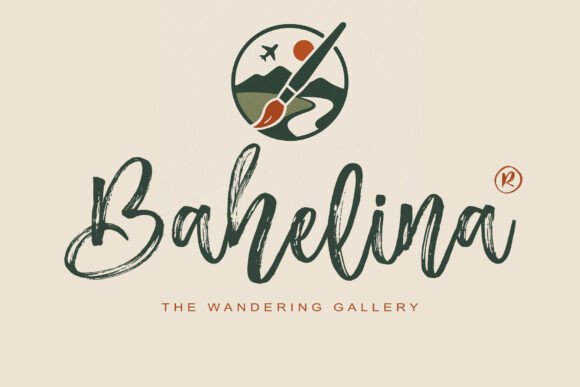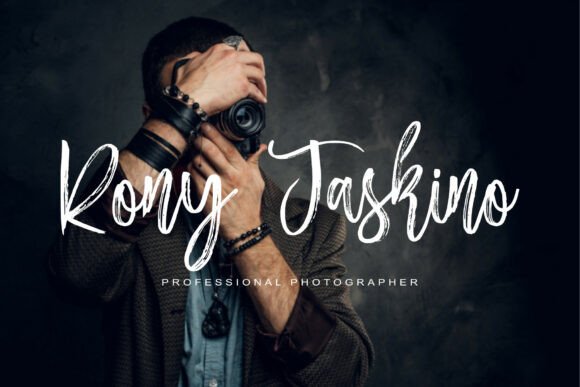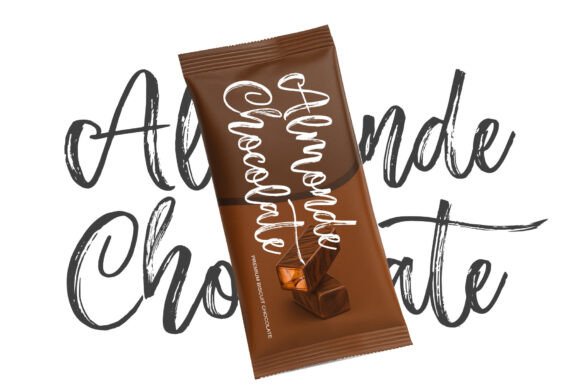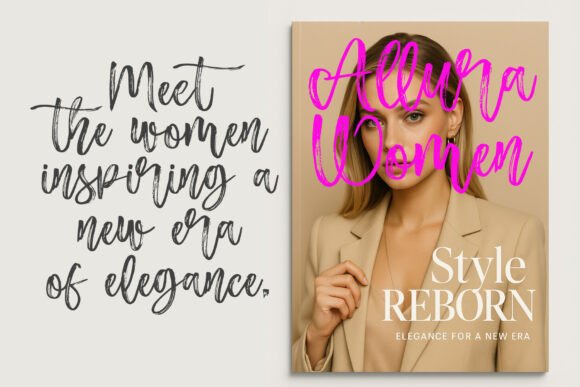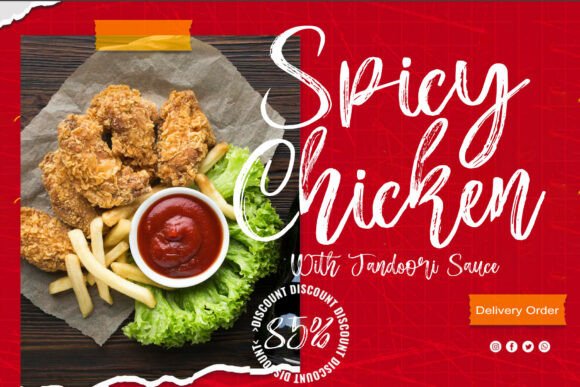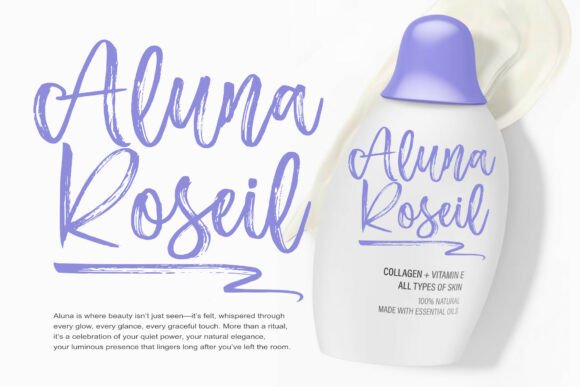
Introducing Amiluera Font: Elevate Your Designs with Luxurious Handbrush Script
In the world of typography, few fonts manage to convey the essence of elegance, flow, and timeless charm as effectively as Amiluera. This luxurious handbrush script font is a masterpiece of modern calligraphy, designed to infuse your creative projects with a romantic and sophisticated flair. Whether you’re a designer, craftsperson, or DIY enthusiast, Amiluera offers the perfect blend of style and versatility to elevate your work.
The Inspiration Behind Amiluera
Amiluera draws its inspiration from the realms of high-fashion branding and modern calligraphy. The result is a font that exudes luxury, poise, and refinement. Each letterform is meticulously crafted to showcase beautifully connected strokes, creating a fluid and dynamic movement that is both captivating and stylish. This attention to detail makes Amiluera an exceptional choice for projects where making a lasting impression is paramount.
Key Features of Amiluera Font
- Smooth Strokes and Graceful Curves: Amiluera’s defining feature is its smooth, handbrush script style. The font boasts graceful curves and fluid connections between letters, creating a harmonious and elegant appearance.
- Timeless Charm: Unlike trends that fade with time, Amiluera’s classic appeal ensures that your designs remain relevant and stylish for years to come.
- Versatility: From wedding invitations and feminine logos to social media graphics, product packaging, and editorial designs, Amiluera’s versatility knows no bounds. Its adaptability makes it an invaluable asset for any designer or craftsperson.
- Romantic and Sophisticated Touch: Amiluera adds a touch of romance and sophistication to any project. Its luxurious feel is perfect for designs that require a high-end look and feel.
Perfect Applications for Amiluera
Amiluera’s unique characteristics make it suitable for a wide range of applications. Here are some of the ideal uses for this stunning font:
- Wedding Invitations: Add a touch of elegance and romance to your wedding invitations, save-the-date cards, and other wedding-related materials.
- Feminine Logos: Create memorable and stylish logos for brands that cater to a feminine audience or require a touch of elegance.
- Social Media Graphics: Elevate your social media presence with stylish and engaging graphics that reflect your brand’s personality.
- Product Packaging: Stand out in the market with beautifully designed product packaging that exudes luxury and sophistication.
- Editorial Designs: Add a touch of class to your editorial designs, including magazines, blogs, and newspapers.
Why Choose Amiluera?
In a sea of fonts, Amiluera stands out for its unique blend of elegance, versatility, and timeless appeal. Here are a few reasons why Amiluera should be your go-to font for your next project:
- Elegance: Amiluera brings an unmatched level of elegance to any design, making it perfect for projects that demand a sophisticated look.
- Readability: Despite its luxurious and flowing design, Amiluera maintains excellent readability, ensuring your message is conveyed clearly and effectively.
- Uniqueness: With Amiluera, you can be sure that your designs will stand out from the crowd. Its distinctive style ensures that your work will be memorable and impactful.
Amiluera is more than just a font; it’s a design statement. With its luxurious handbrush script, smooth strokes, and timeless charm, Amiluera offers a unique opportunity to elevate your creative projects. Whether you’re designing for luxury brands, creating wedding invitations, or simply looking to add a touch of elegance to your social media graphics, Amiluera is the perfect choice. Discover the transformative power of Amiluera and bring a new level of sophistication and style to your designs.